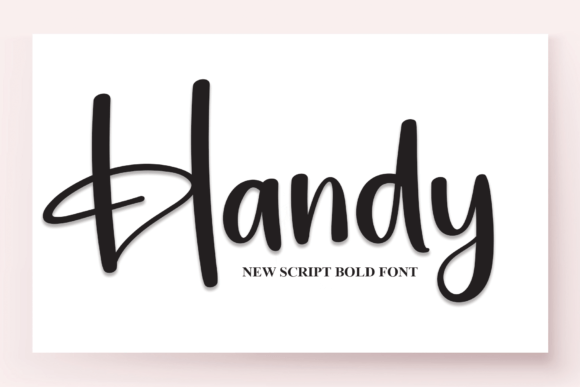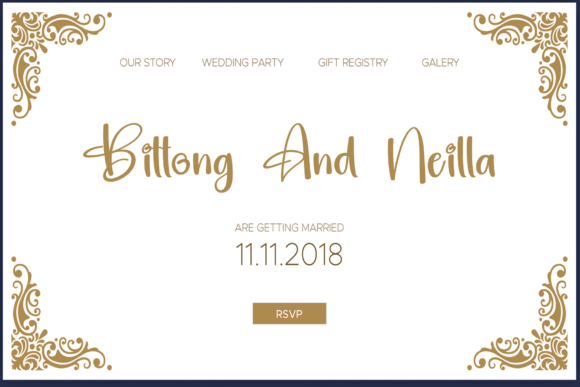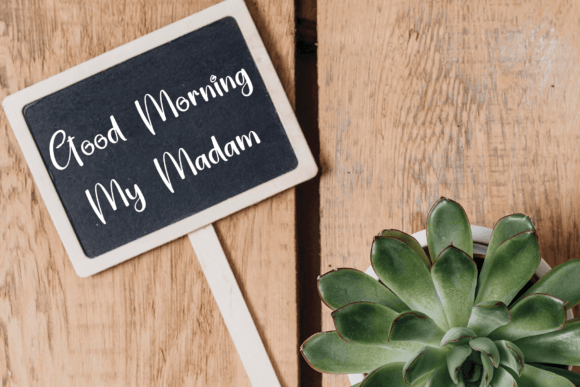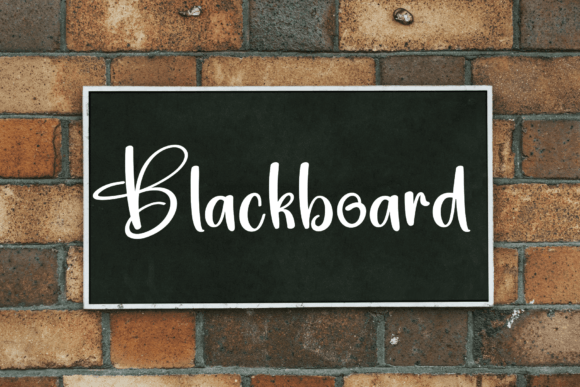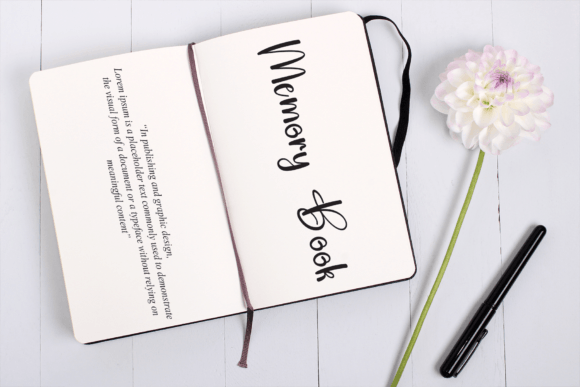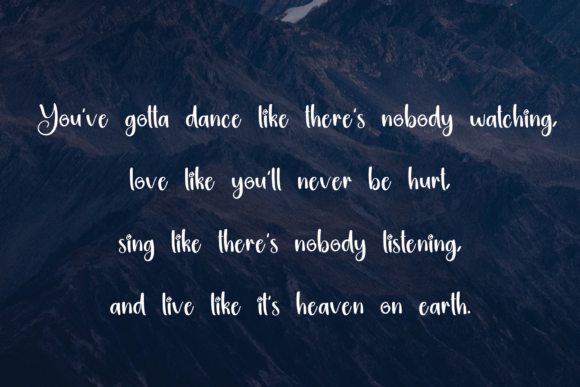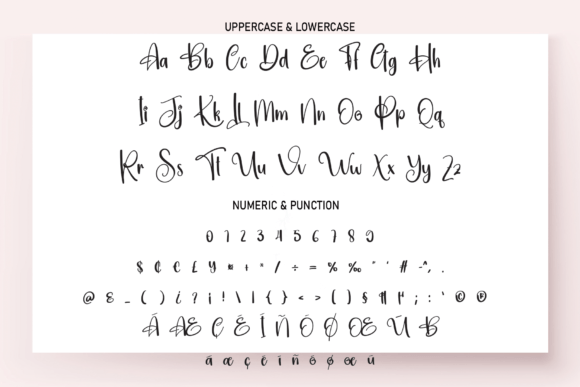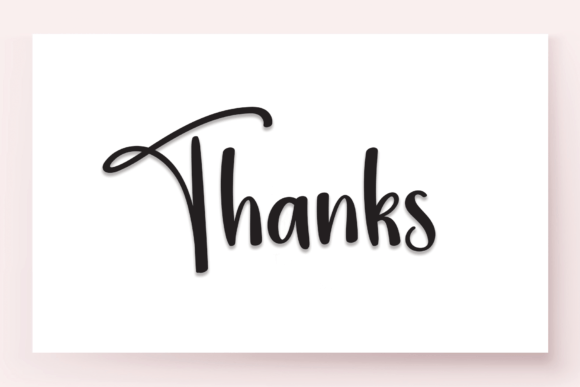
Handy Font
About Handy Font
Handy is an exquisite script font that exudes elegance, boasting a contemporary ambiance and impeccable form. Drawing inspiration from timeless classic calligraphy, this font strikes the perfect balance between not being too thin and not too thick. With a harmonious and varied design, Handy is crafted to elevate the beauty of your projects to new heights.
The timeless influence of classic calligraphy is evident in every stroke of Handy, lending an air of sophistication to its contemporary aesthetic. The font’s versatility lies in its ability to seamlessly adapt to a diverse range of design projects, enhancing the visual appeal with its balanced and carefully crafted characters.
Notable is Handy’s commitment to maintaining a perfect equilibrium between thickness and delicacy. Each letter is a testament to thoughtful design, ensuring that the font remains poised and adaptable, whether it’s adorning a headline, crafting a logo, or gracing an invitation.
This font is a design companion crafted to enhance the beauty of your creative endeavors. Whether you’re working on editorial layouts, branding materials, signage, or any project where a touch of elegance is desired, Handy effortlessly integrates to elevate your design to a level of timeless grace.
The varied forms within Handy make it a versatile tool, capable of adding a layer of sophistication to a broad spectrum of creative works. From printed materials to digital platforms, this font adapts with ease, making it an invaluable asset for designers seeking a touch of classic beauty with a contemporary twist.
In summary, Handy is more than just a font; it’s a refined expression of elegance and form. Allow it to be the brushstroke that enhances the visual allure of your projects, embodying a timeless aesthetic that transcends trends and stands the test of time.